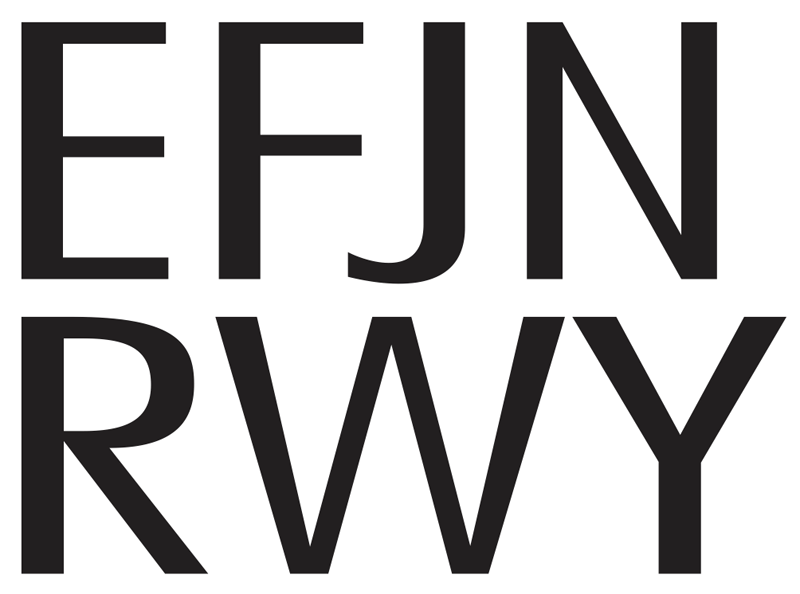
I can't seem to figure out the typeface used in the attached sample. It made me thing of some kind of MS Office-bundled sans face or something along those lines. It came by way of some customer provided artwork -with all the lettering distorted (as usual). I'm guessing the proportions in the attached sample are close to normal.
I can't put my finger on it. There are hints of Peignot, Optima and Ocean Sans in it. The "W" is a real puzzler.
Yeah, I think Futura Light Condensed is the true source typeface for that lettering. The "designer" simply distorted the crud out of it, and performed a few more alterations on the letters (like the ''N") before ending the font torture. Another element in the artwork I received featured Penumbra Titling Light horizontally stretched to obscene proportions. Graphic design brought to you by the fun house mirror!